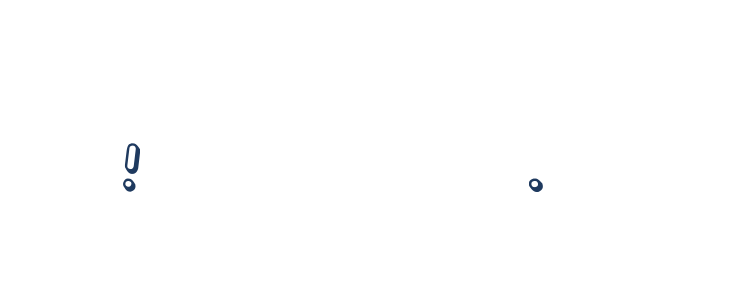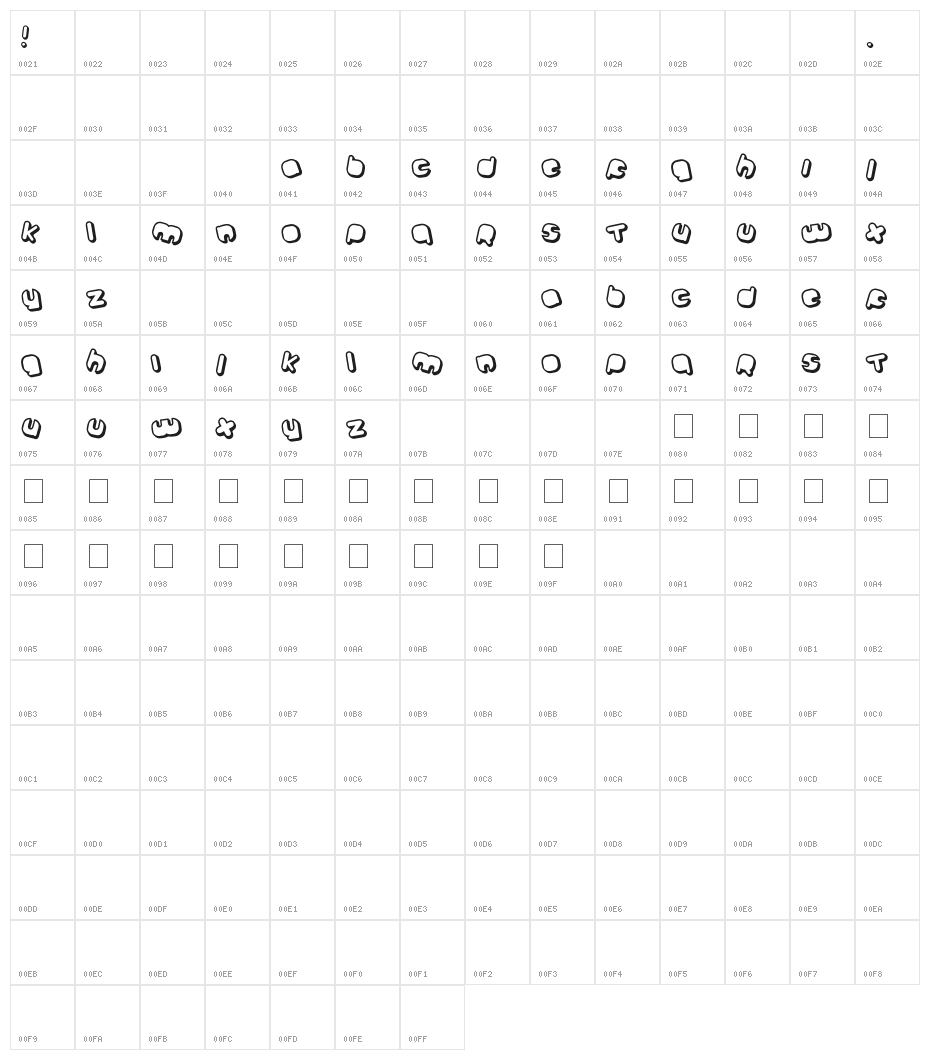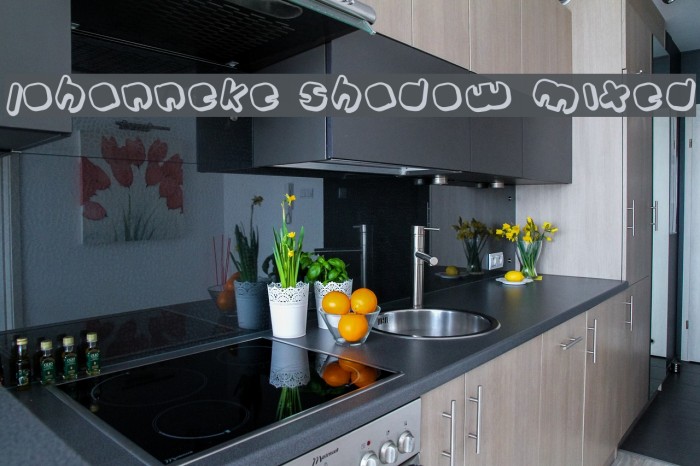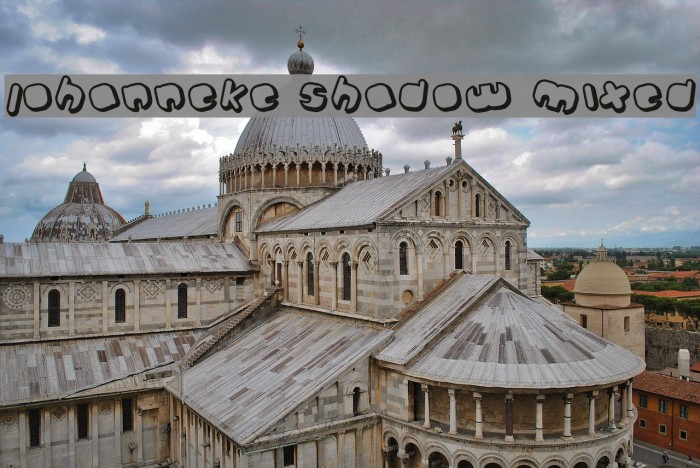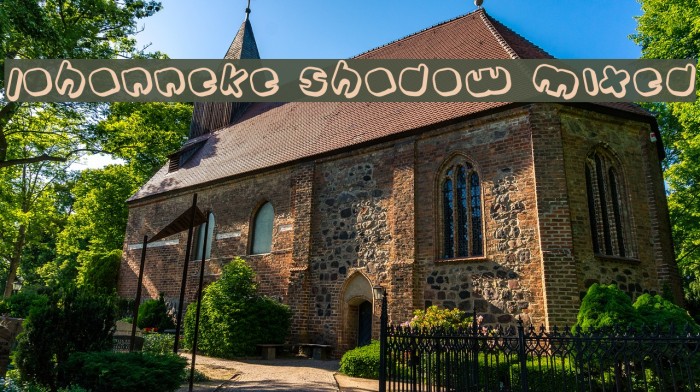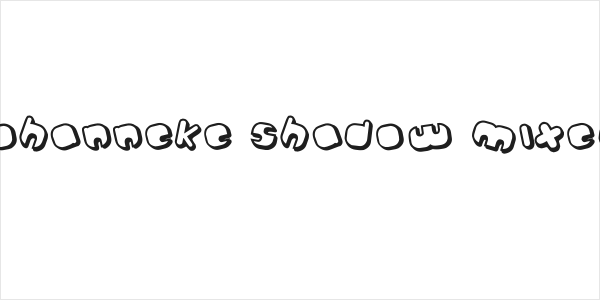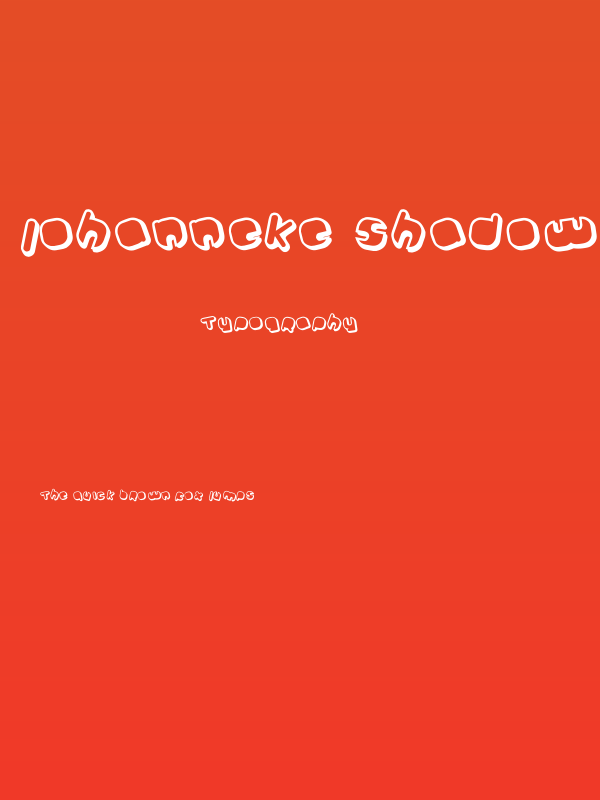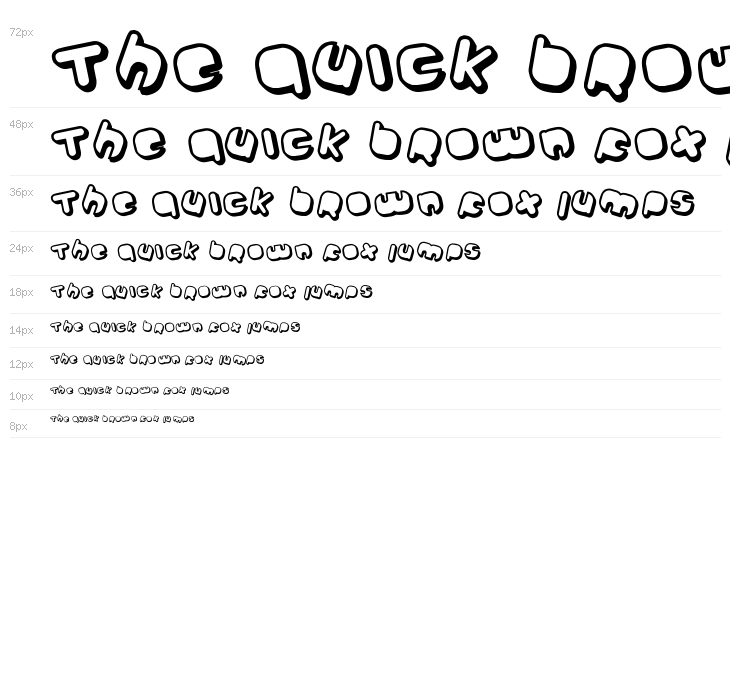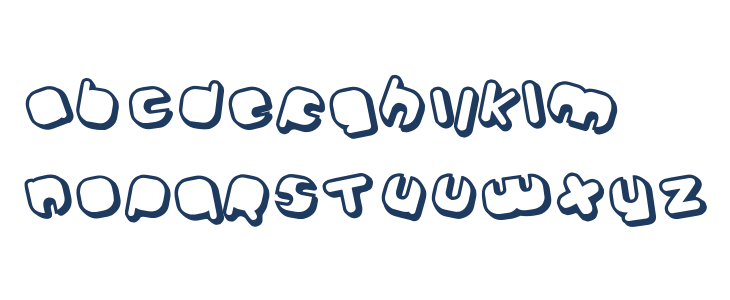
Johanneke Shadow Mixed Font
Johanneke Shadow Mixed Description
This playful and bold font features a unique shadow effect that gives it a three-dimensional appearance. The characters are rounded and bubbly, with a thick outline that enhances the shadow effect. The font has a whimsical and cartoonish style, making it ideal for creative and fun projects. The lowercase letters are consistent in style, maintaining the playful theme throughout. The font's design is eye-catching and memorable, perfect for making a statement.
| Overall Style | Playful, Cartoonish |
| Proposed Projects | Ideal for children's books, comic strips, playful branding, and creative posters. |